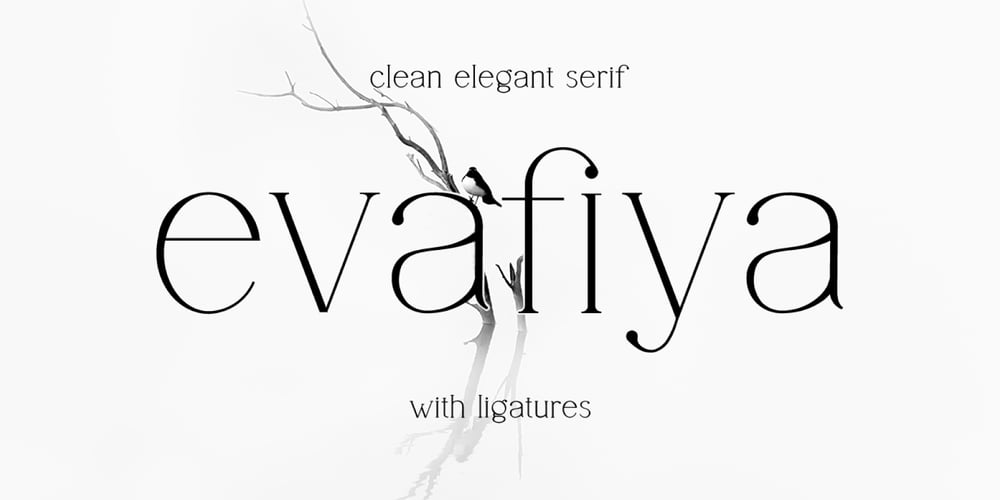
Evafiya Font Family was designed by Aswangga Sadike and published by Salamahtype. Evafiya contains 2 styles and family package options. Evafiya is an elegant and clean serif font. This font is perfect for logo, social media posts, advertisements, product packaging, branding projects, wedding invitations, product designs, label, photography, watermark, and stationery.Features : Ligature Simple installations – Works on PC & Mac Standard and Multilingual Glyphs PUA Encoded Characters – Fully accessible without additional design software Accessible in Adobe Illustrator, Adobe Photoshop, Adobe InDesign, even work on Microsoft Word.